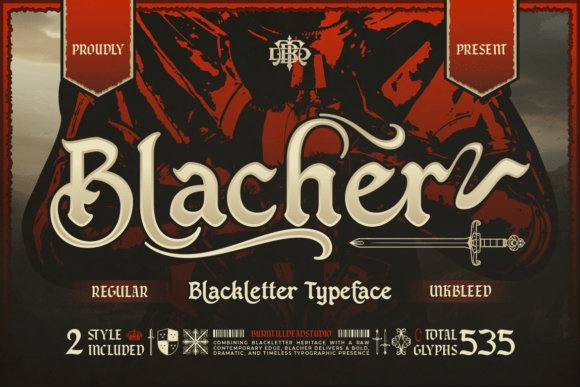
The Blacher Font: A Timeless Blackletter Typeface for Modern Designs
I still remember the design project that led me to discover the Blacher font. I was working on a medieval-themed branding campaign for a local brewery, and I was struggling to find a font that captured the essence of ancient times while still feeling modern and readable. That’s when I stumbled upon Blacher, a bold blackletter typeface that instantly caught my attention. Its sharp yet elegant letterforms seemed to bring the perfect blend of classic and contemporary vibes to my design.
- ✅ Timeless feel: Blacher brings a dramatic and timeless feel to any project, making it perfect for designs that need a strong historical character.
- ✅ Creative freedom: The font comes with carefully crafted alternates, giving you plenty of creative freedom to build unique and eye-catching typography.
- ✅ Readability: Despite its bold and ornate design, Blacher remains surprisingly readable, even in smaller font sizes.
- ✅ Versatility: This font is perfect for a wide range of design projects, from branding and posters to merchandise and editorial layouts.
Small Quirks and Limitations ⚠️
While Blacher is an amazing font, there are a few things to keep in mind. For example, some of the more intricate letterforms can get a bit lost at very small font sizes. Additionally, the font’s bold design may overpower certain design elements, so it’s essential to balance it with complementary fonts and graphics.
Another thing to consider is that Blacher’s medieval-inspired design might not be the best fit for very modern or minimalist designs. However, with a little creativity, you can still make it work.
The Story Behind Blacher: Designer Inspiration
Blacher was designed with the goal of creating a bold blackletter typeface that blends classic medieval vibes with a clean, contemporary touch. The designer drew inspiration from ancient manuscripts, medieval illuminated letters, and modern typography, resulting in a font that’s both timeless and modern.
Q: What themes is Blacher best suited for?
A: Blacher is perfect for medieval and fantasy themes, album covers and band merch, vintage branding, posters and headlines, gaming, and cinematic titles.
Q: Does Blacher come with any special features?
A: Yes, Blacher includes a range of OpenType features, such as stylistic alternates, glyphs, and ligatures, giving you plenty of creative freedom to customize your typography.
Q: Is Blacher suitable for body text?
A: While Blacher is a bold and ornate font, it’s not ideal for long blocks of body text. However, it works beautifully as a headline or display font, adding a touch of drama and elegance to your design.